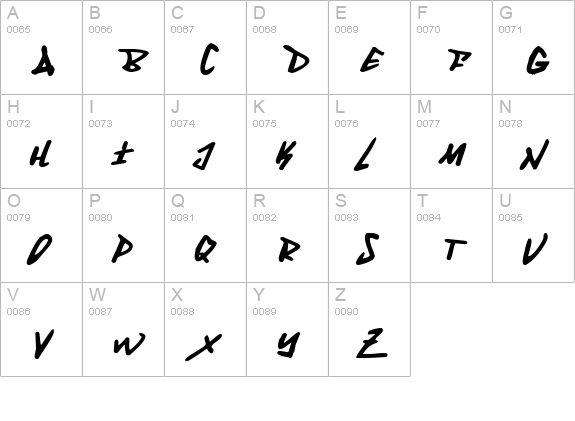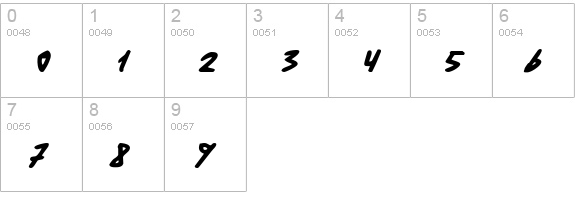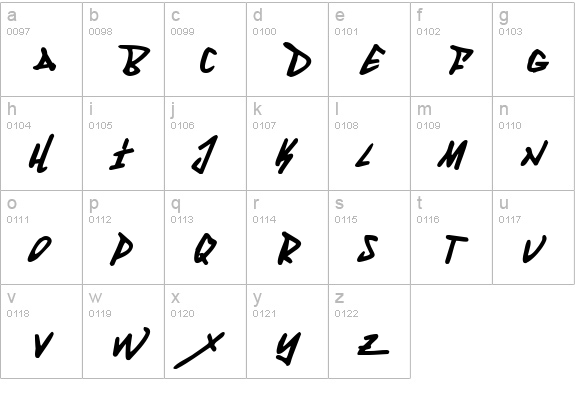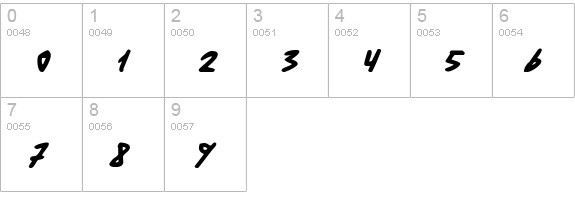
Fantom Italic is a distinctive, italic variant in the Fantom typeface family \xE2\x80\x94 well suited to design and typography projects.
Introducing Fantom Italic font, a sleek and stylish typeface perfect for adding a touch of elegance to your designs. The flowing lines and subtle curves of this font exude sophistication and charm, making it ideal for a wide range of projects. Fantom Italic font is not only visually pleasing but also highly versatile, lending itself well to both print and digital applications. Whether you're designing a logo, creating a poster, or crafting a website, this font will add a touch of class to your work. What's even better is that Fantom Italic font is available for free download at FontsMarket.com. Yes, you read that right - you can enhance your designs with this stunning font without having to spend a dime. So why wait? Head over to FontsMarket.com now and elevate your projects with the timeless beauty of Fantom Italic font.